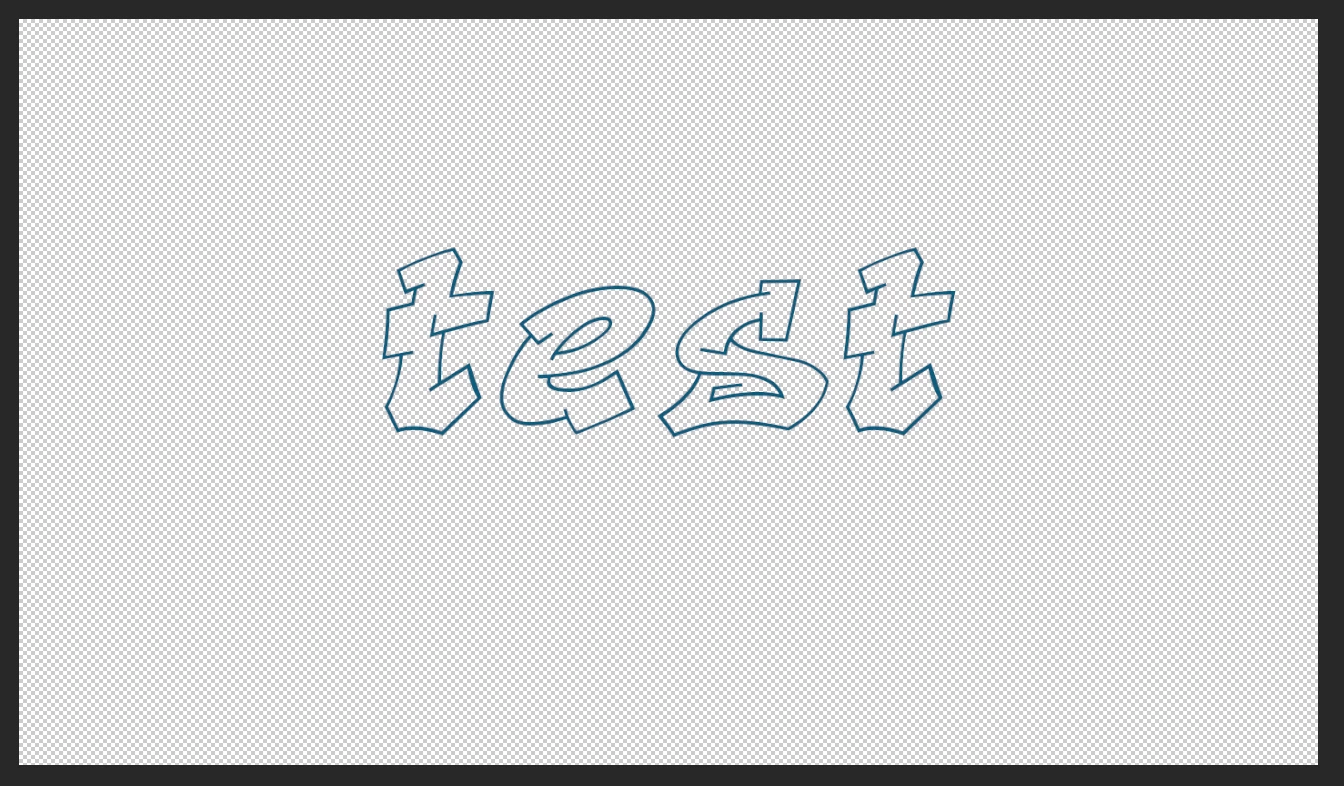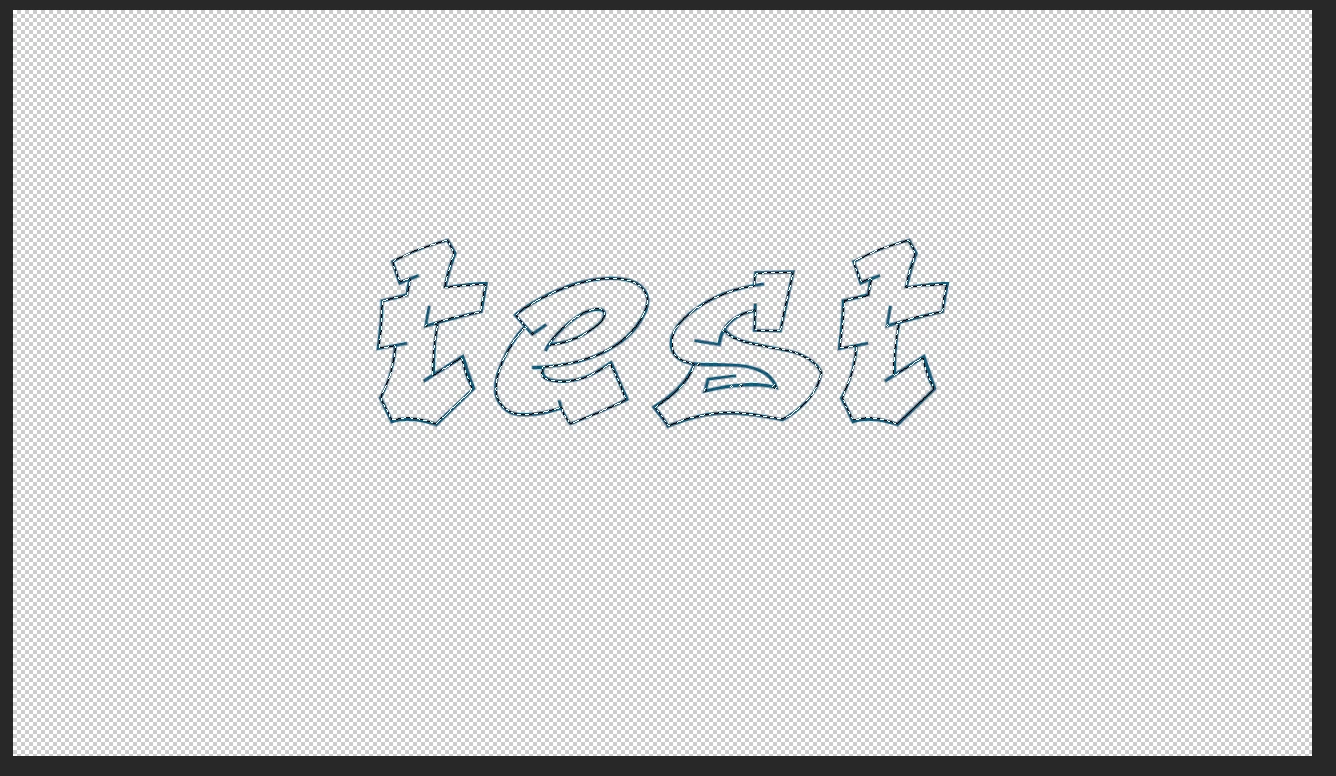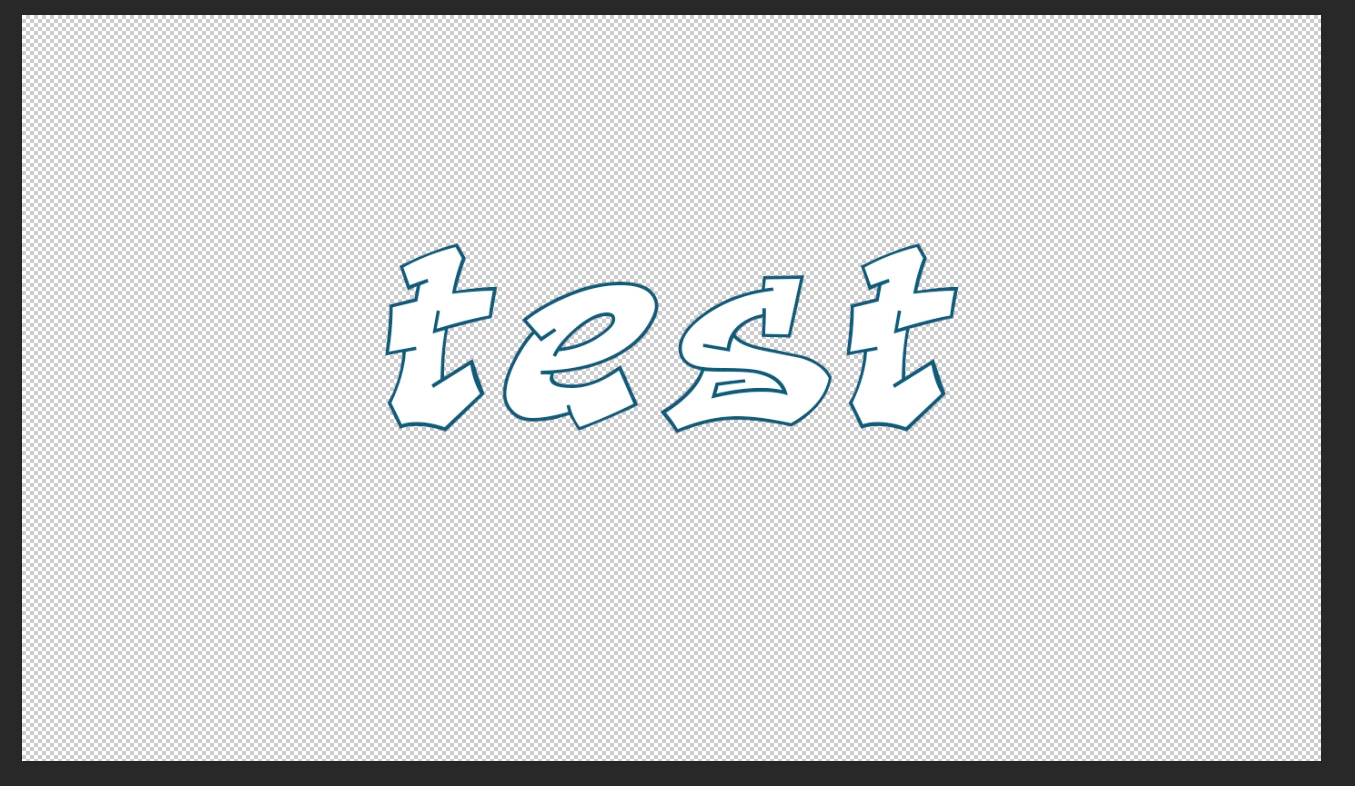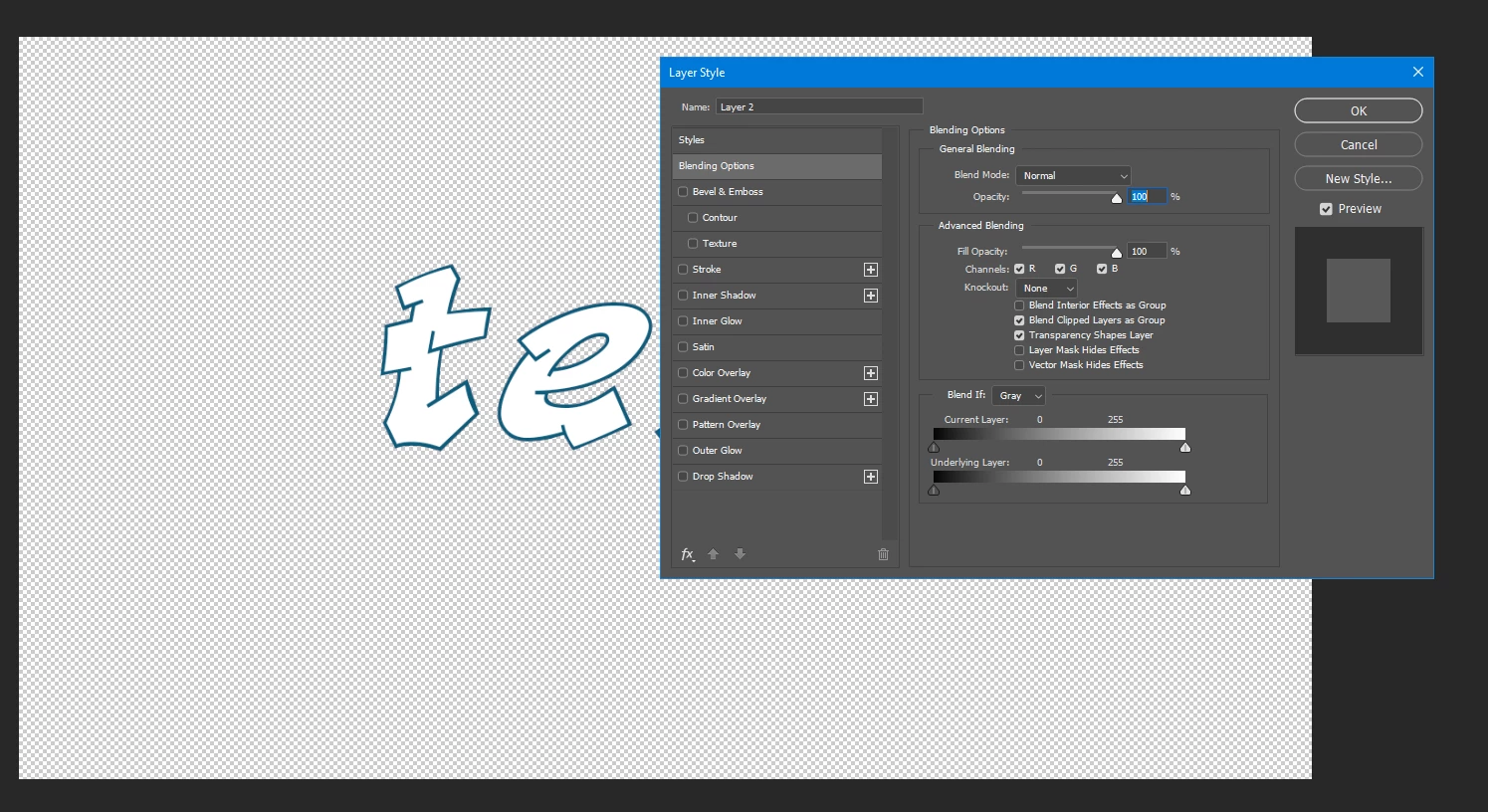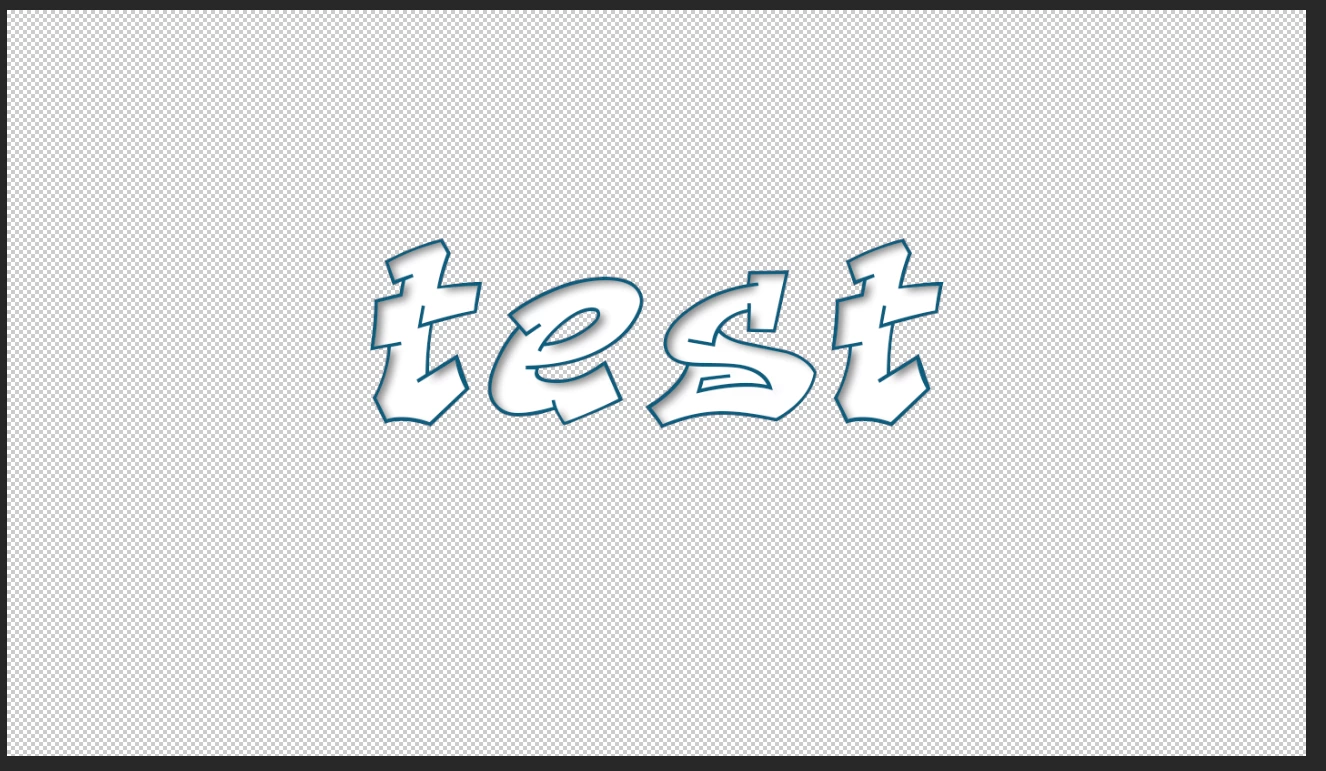
Select Font Text or Body Area Inside of Outline Font?
I have a font I'm using that is an outline font, it's a graffiti font. So it's a wide /thick font, but it really only has color around the edges of the letters. The body or inside or center of the letters are not filled in.
SOoOOOOOOOo...... I want to "fill in" the letters. Of course when I select anything (color range, select everything in the layer, other selection methods).... I just get the font outline, or the edges. HOW? How can I get PS to select the inside or body of the text, so I can fill that selection in?